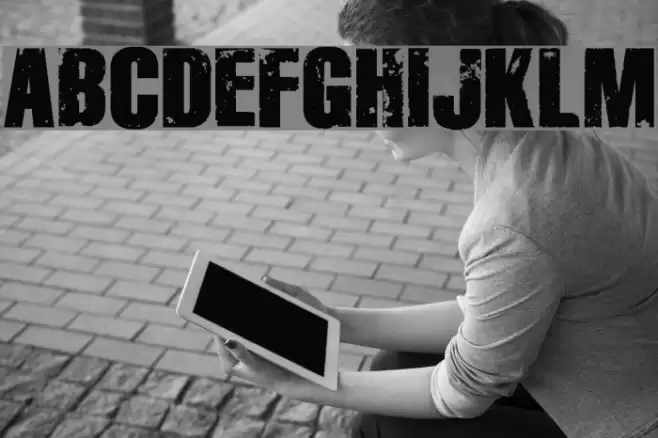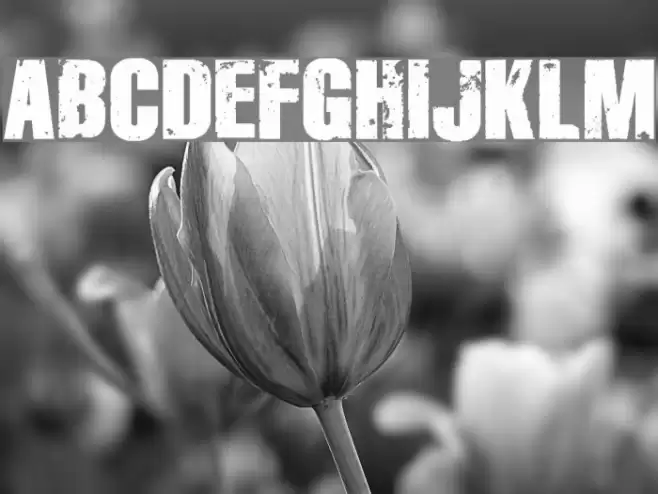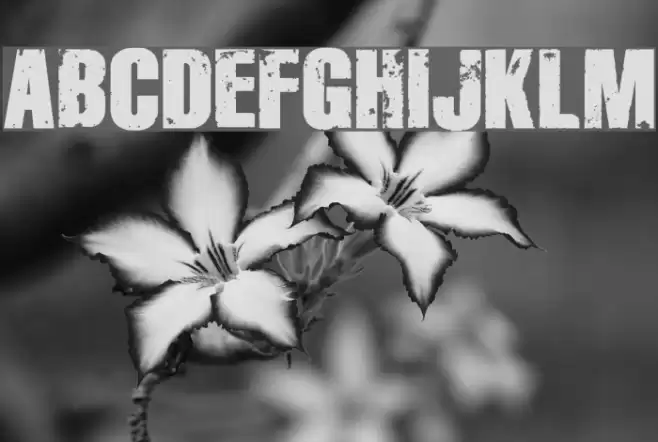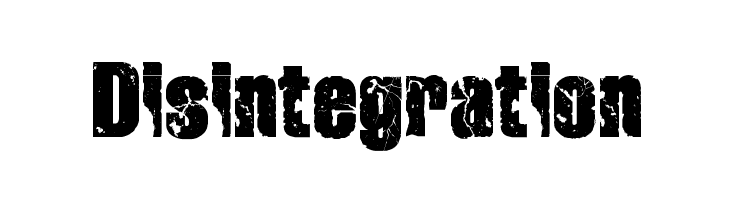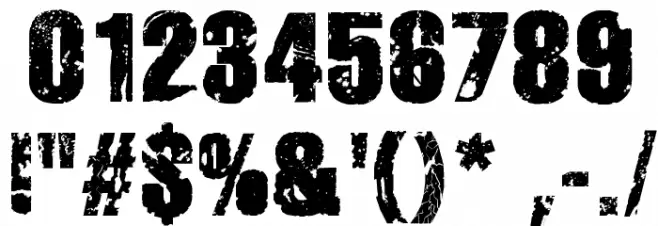
Disintegration Font
Disintegration Description
This font features a distressed, grunge style with a bold and impactful appearance. The characters are heavily textured, giving them a worn, eroded look that suggests decay or disintegration. Each letter and number appears as if it has been weathered over time, with parts of the strokes missing or faded. This creates a dynamic and edgy aesthetic, perfect for projects that require a raw, urban feel. The uppercase and lowercase letters maintain a consistent style, with the uppercase being slightly more pronounced. The numbers and special characters follow the same distressed theme, ensuring a cohesive look across all elements.
A bold, distressed font with a grunge, eroded appearance from Distorted Eroded fonts.
- Proposed Projects: Ideal for album covers, posters, streetwear designs, and edgy branding projects.
- Overall Style: Grunge, Urban, Distressed